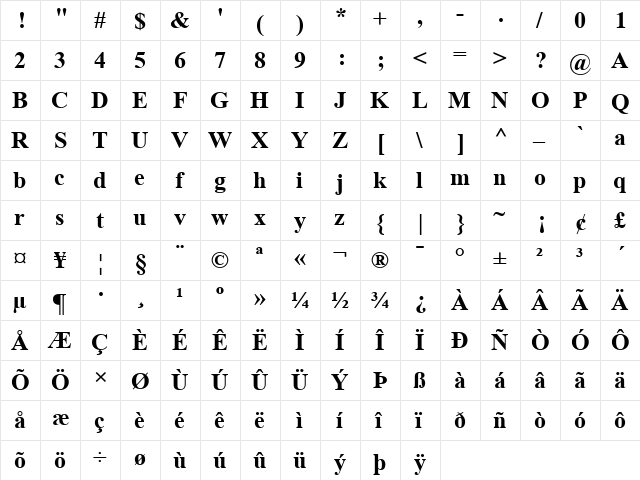
Times New Roman PS Bold
Design Context for Times New Roman PS Typeface
Times New Roman PS takes a measured approach to typography — its balanced proportions and neutral character make it a reliable workhorse for both digital and print work. Its bold stroke weight gives it real presence on the page.